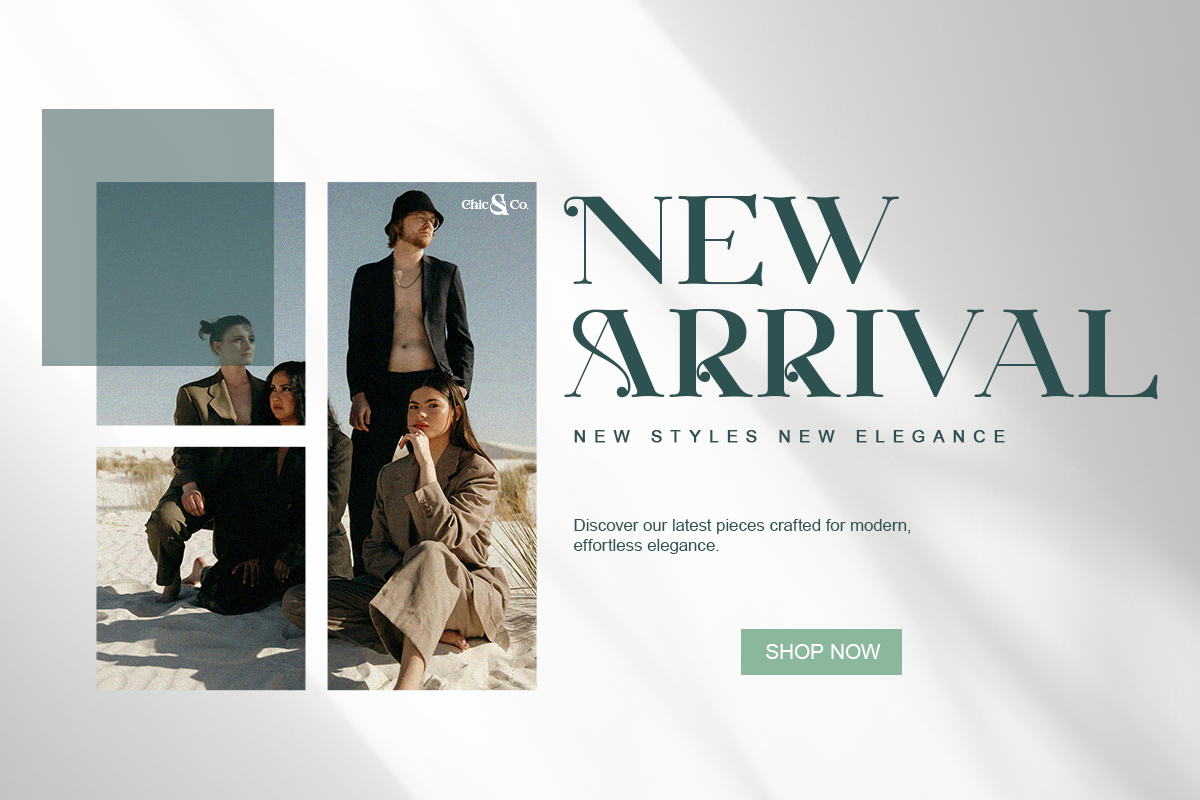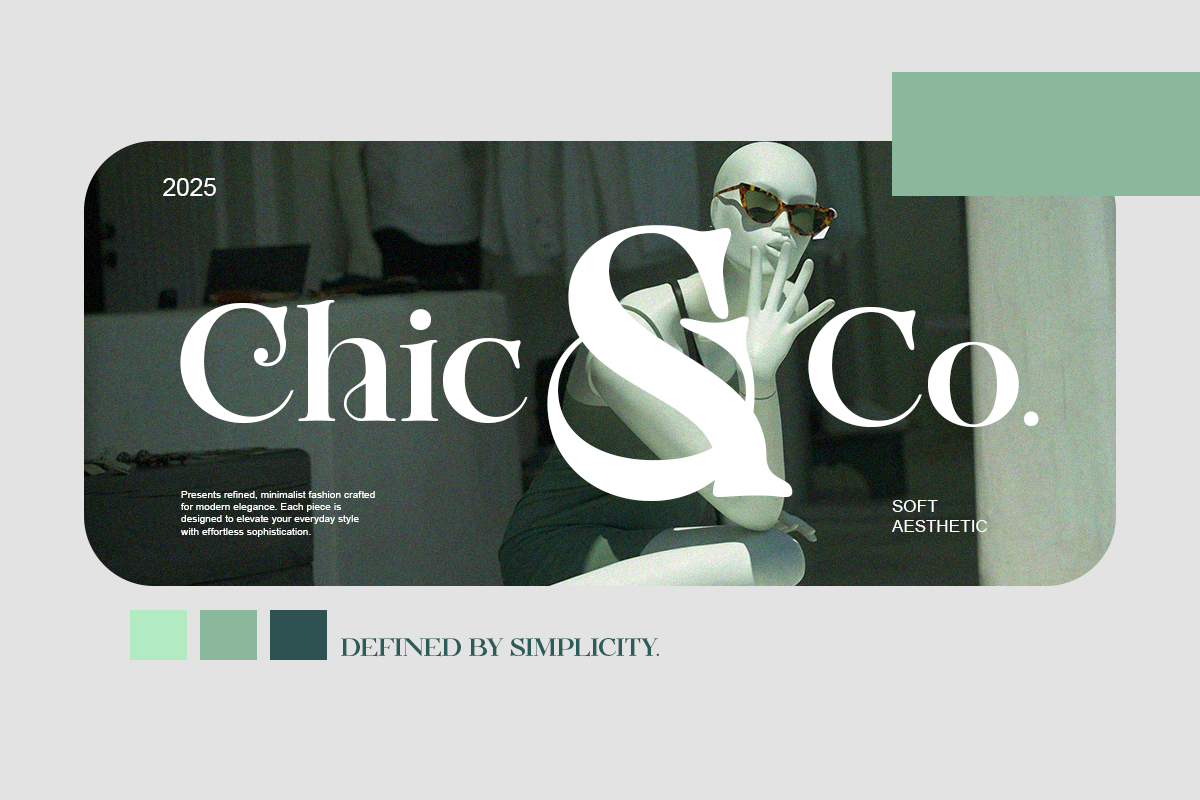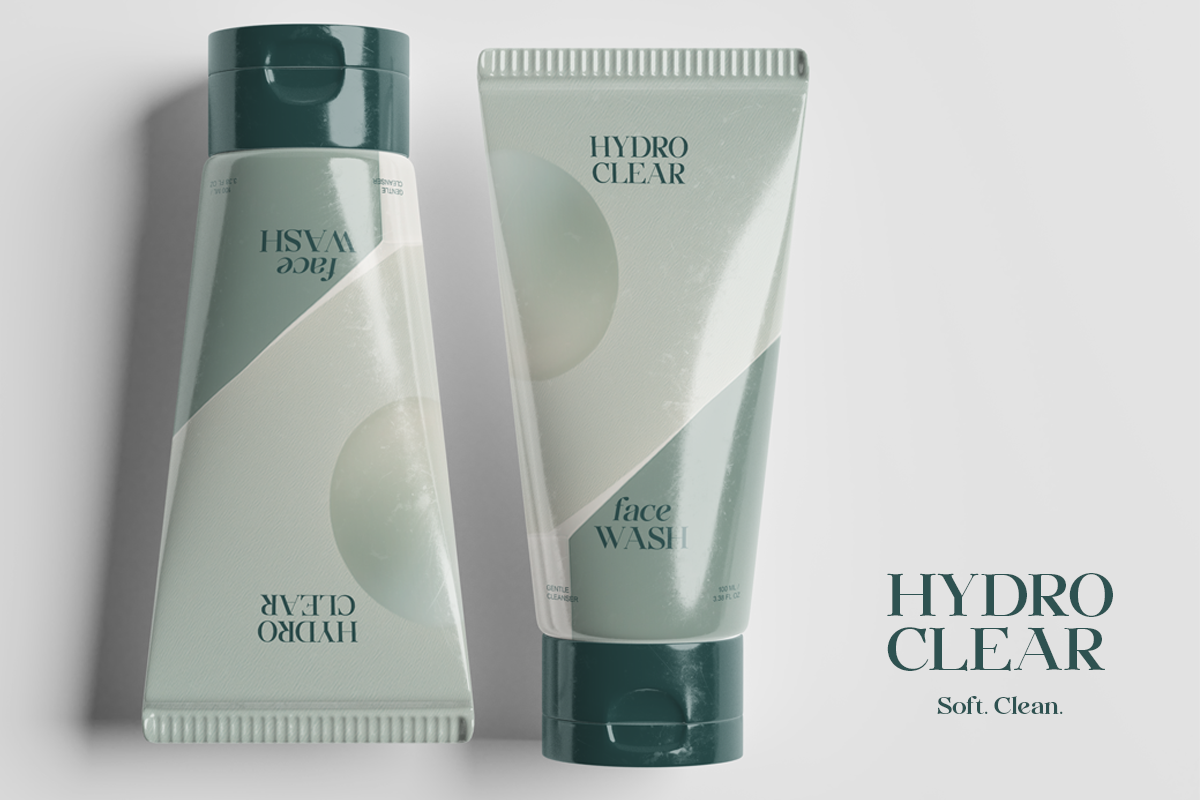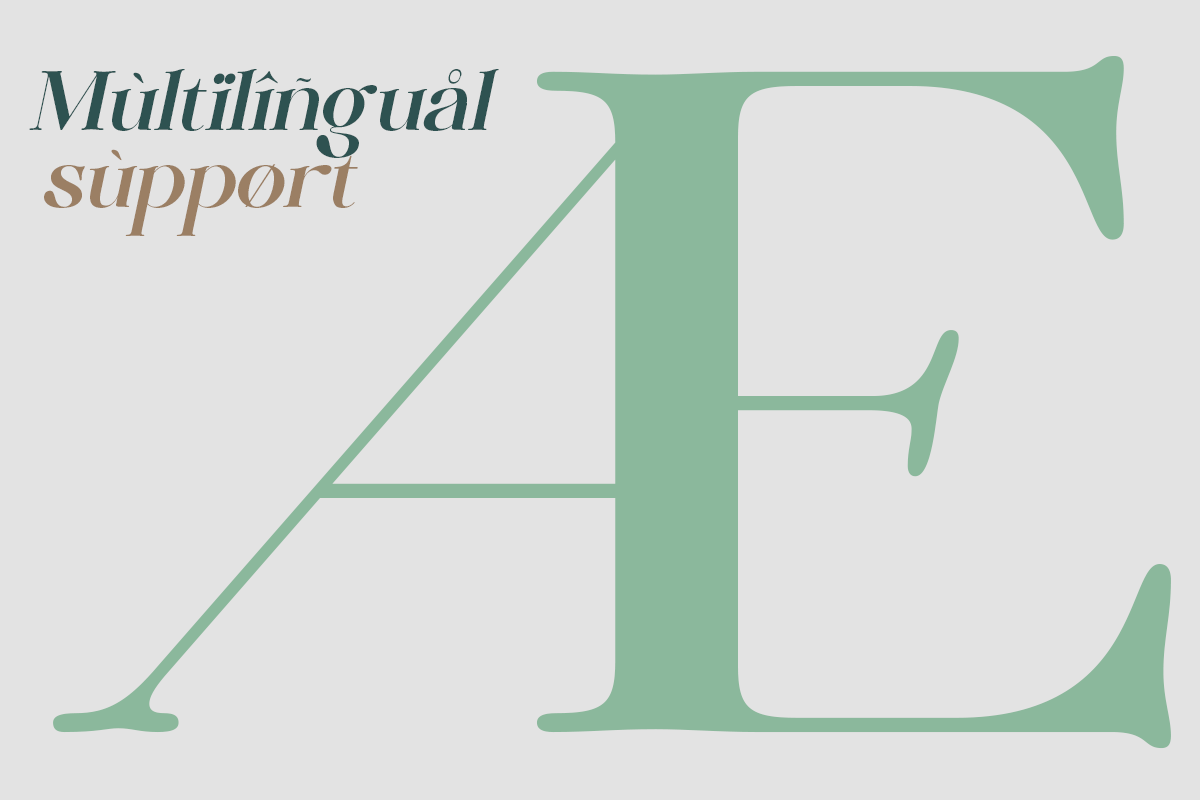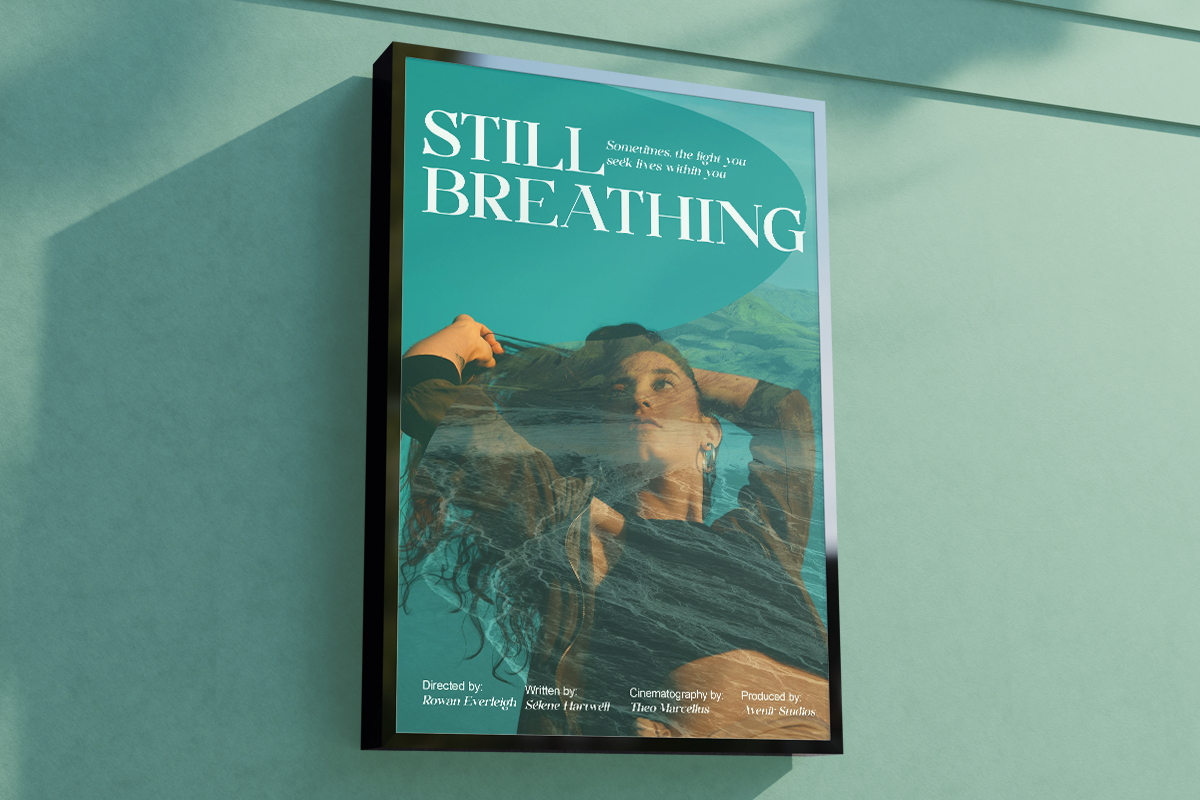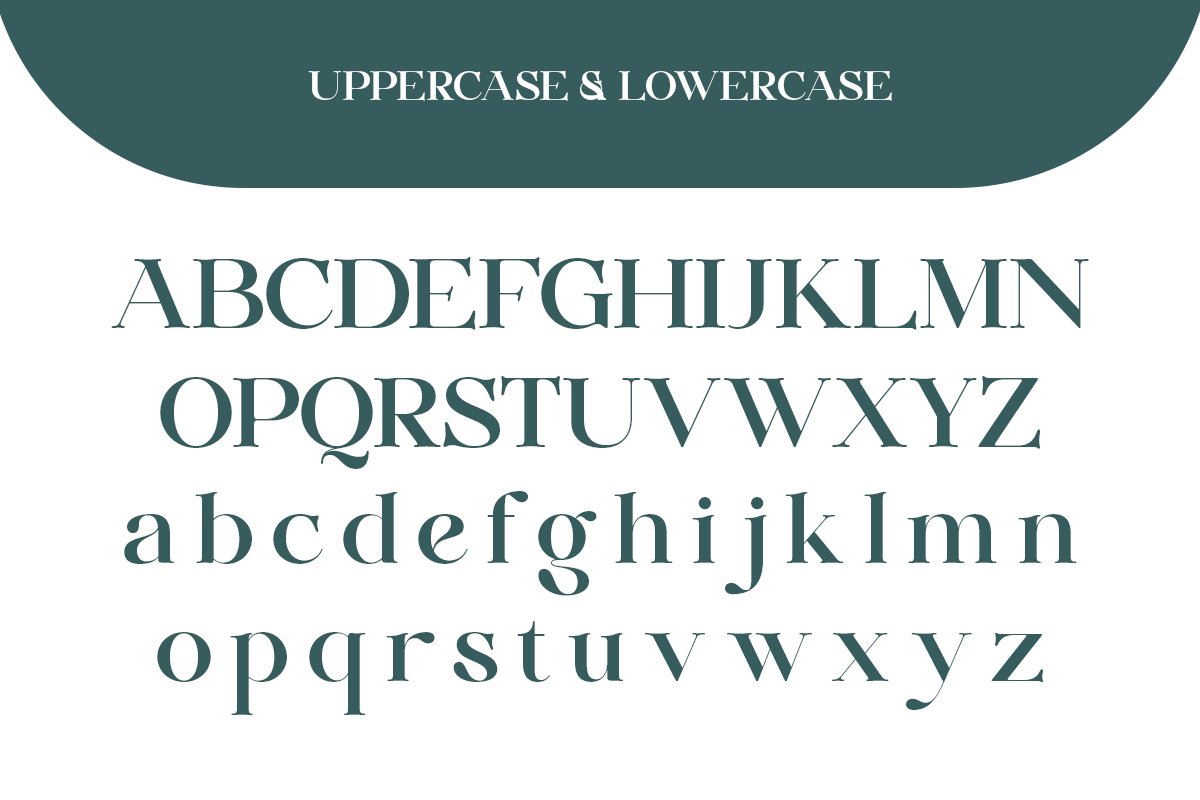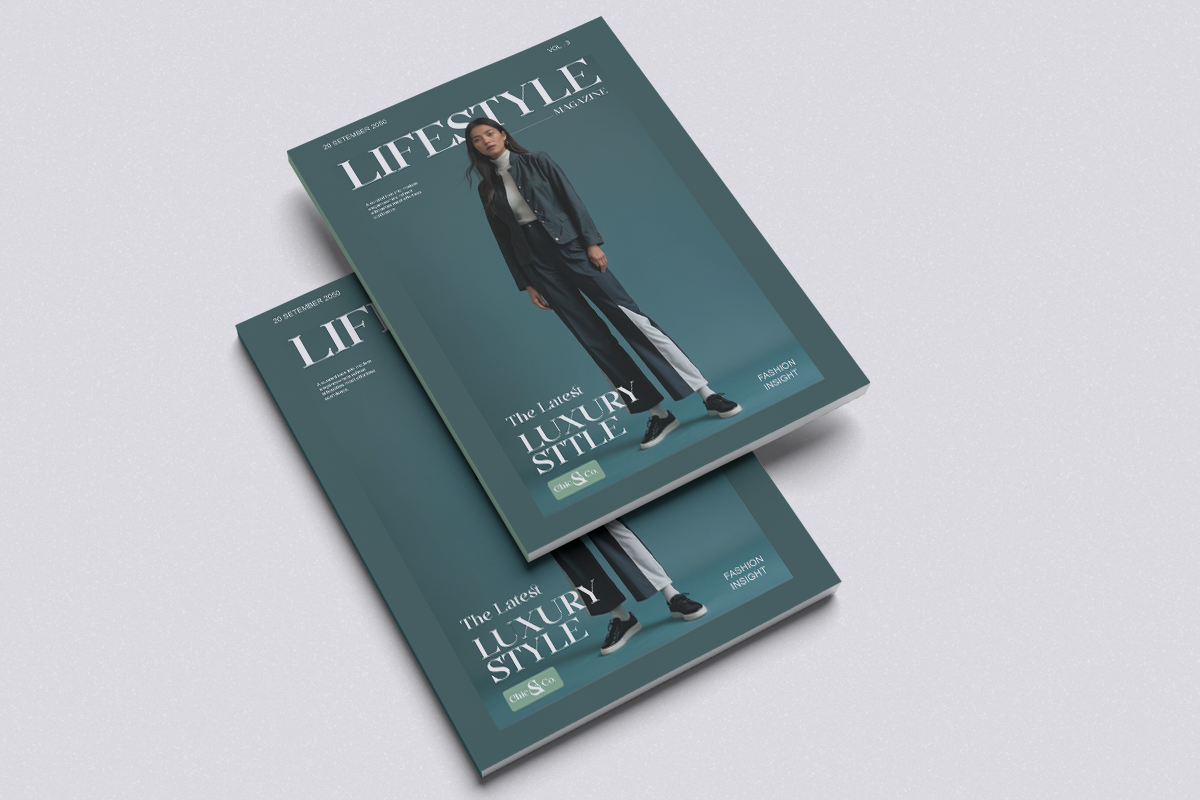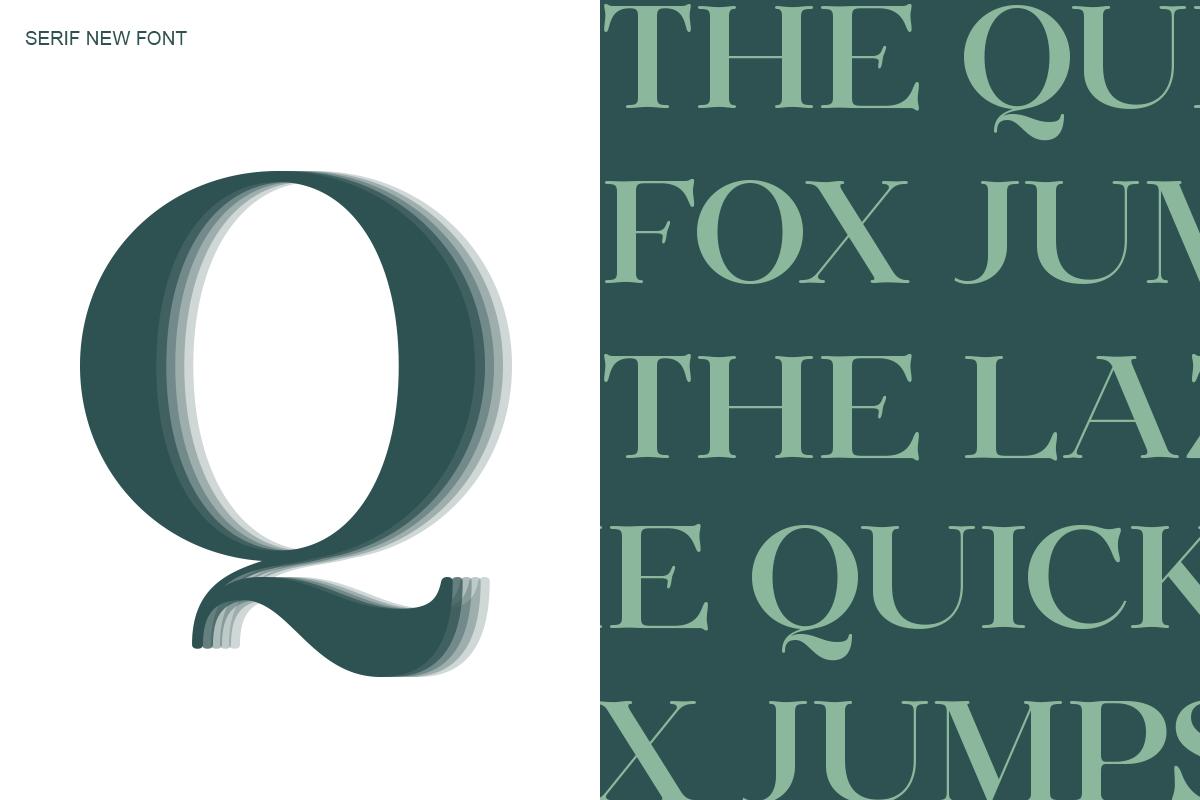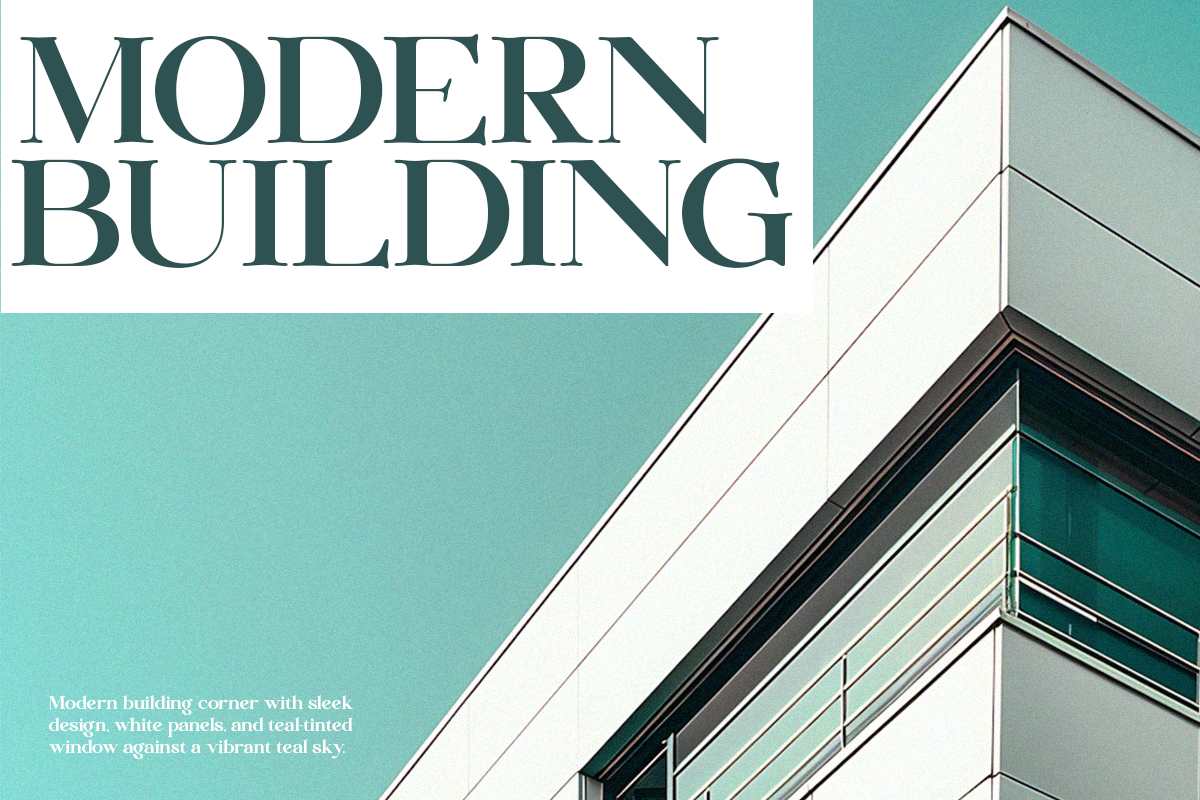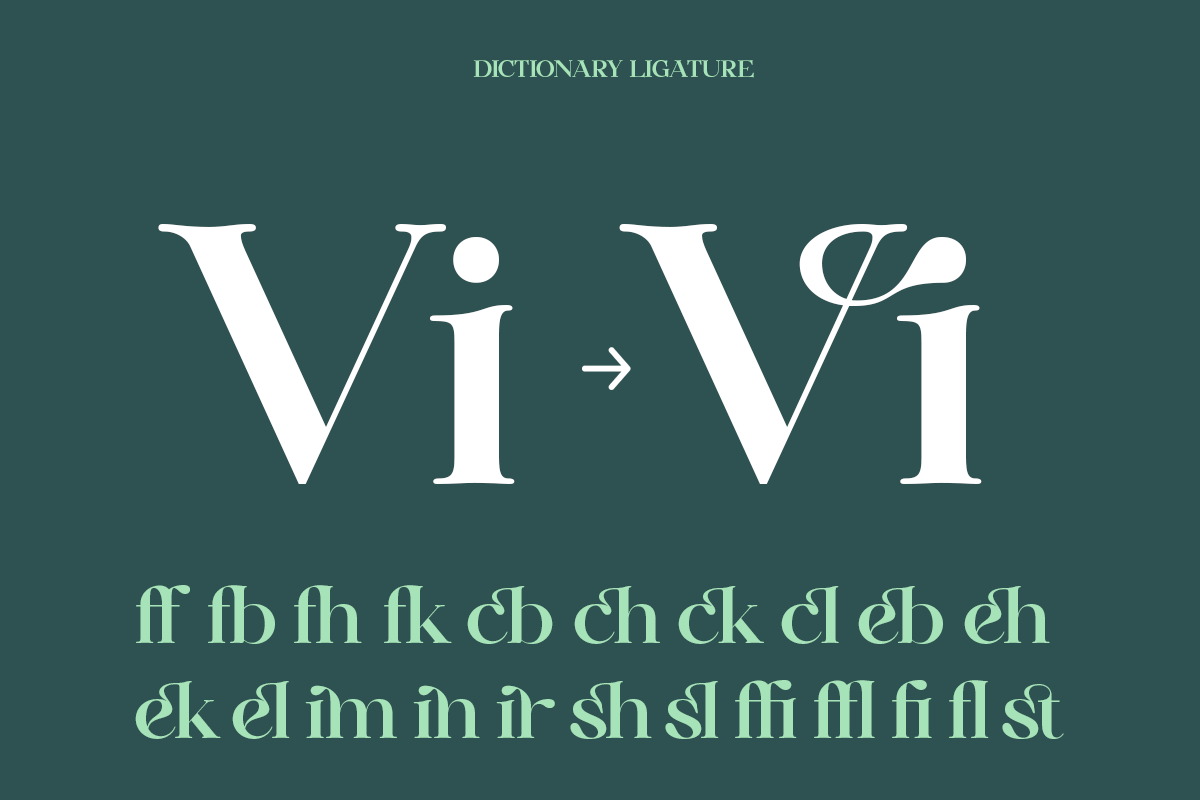
Huffleheim - Elegant Modern Serif
Introducing Huffleheim, a modern serif typeface designed with precision and calm elegance. Its refined contrast and structured form create a sophisticated visual presence perfect for editorial layouts, branding, and luxury campaigns.
With a classic yet contemporary personality, Huffleheim is ideal for designers seeking European-inspired refinement and intellectual authority in their typography.
The included italic style enhances expressive flexibility for modern brand storytelling.
- Regular & Italic styles
- Professional kerning
Magazine covers, architecture branding, book titles, fashion branding, luxury packaging, cinematic posters.